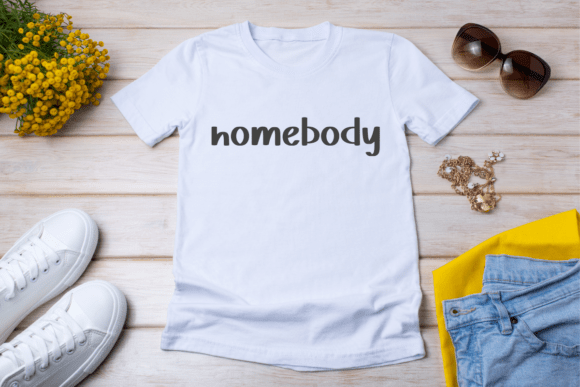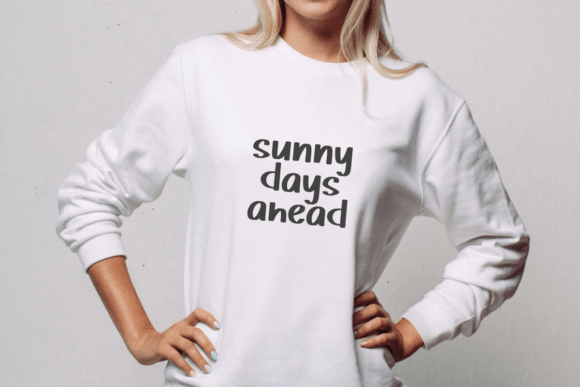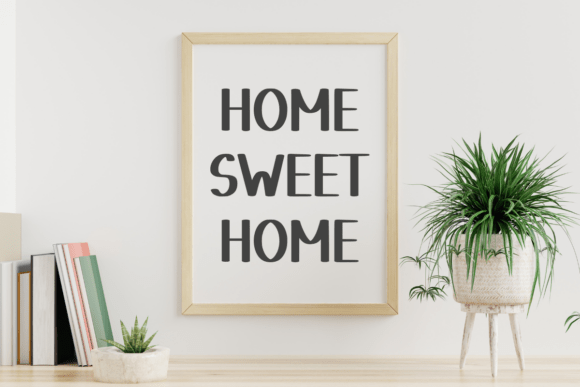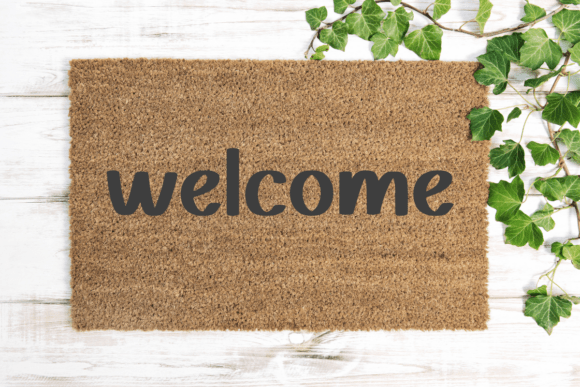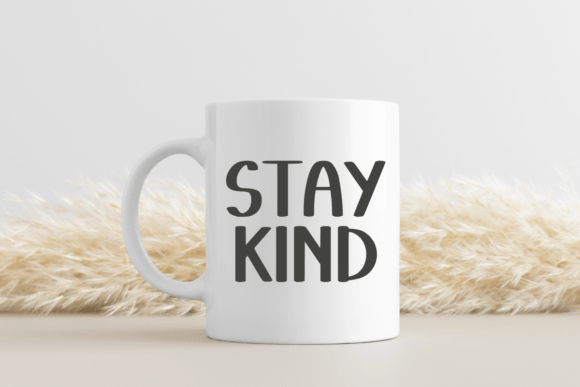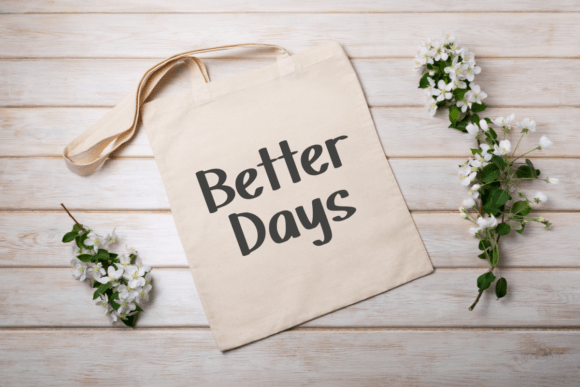
Introduction to Magic Diary Font
Magic Diary is a cute sans serif handwriting font designed with a soft, friendly, and natural look.
This font brings a warm handcrafted feeling that works beautifully for craft projects, planners, stickers, kids’ worksheets, classroom printables, and DIY designs Its simple strokes and smooth curves make it easy to cut using Cricut and Silhouette, and perfect for crafting moms who love adorable handwritten styles.
Key Features of Magic Diary Font
Why Choose Magic Diary Font?
Magic Diary Font offers exceptional quality and versatility, making it a valuable addition to your design toolkit. Whether you’re creating for personal projects or commercial use, Magic Diary Font delivers professional results.